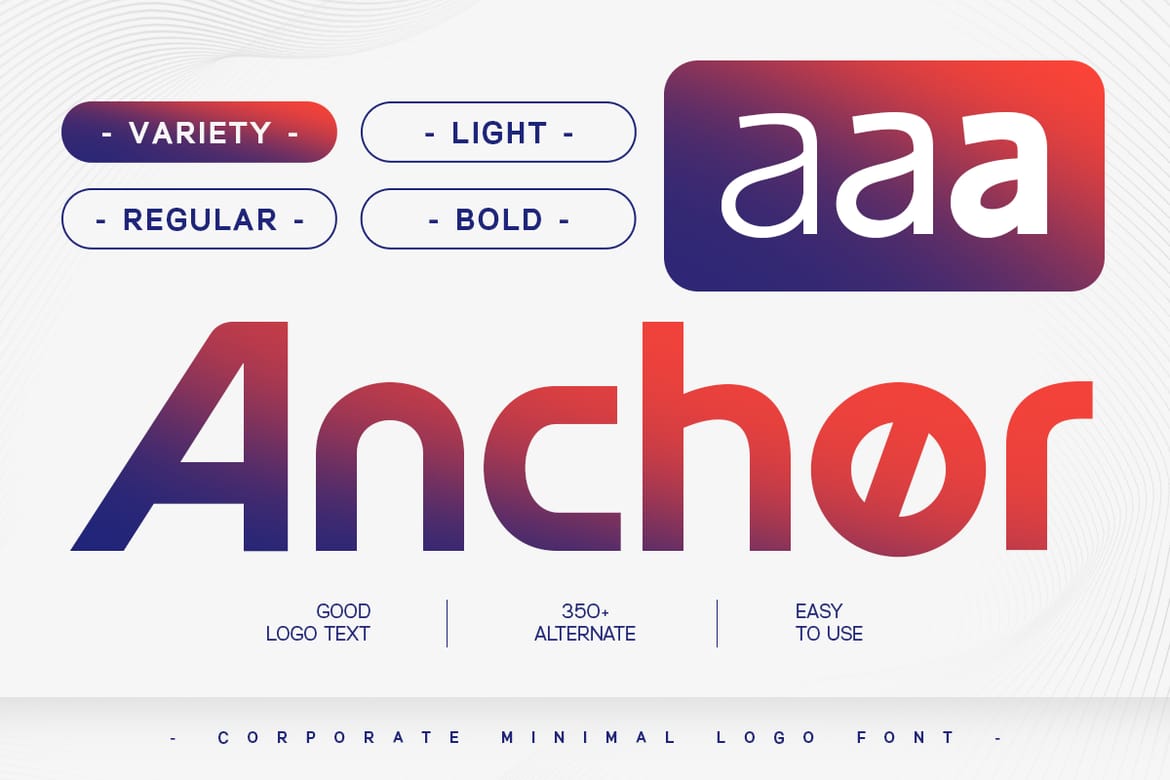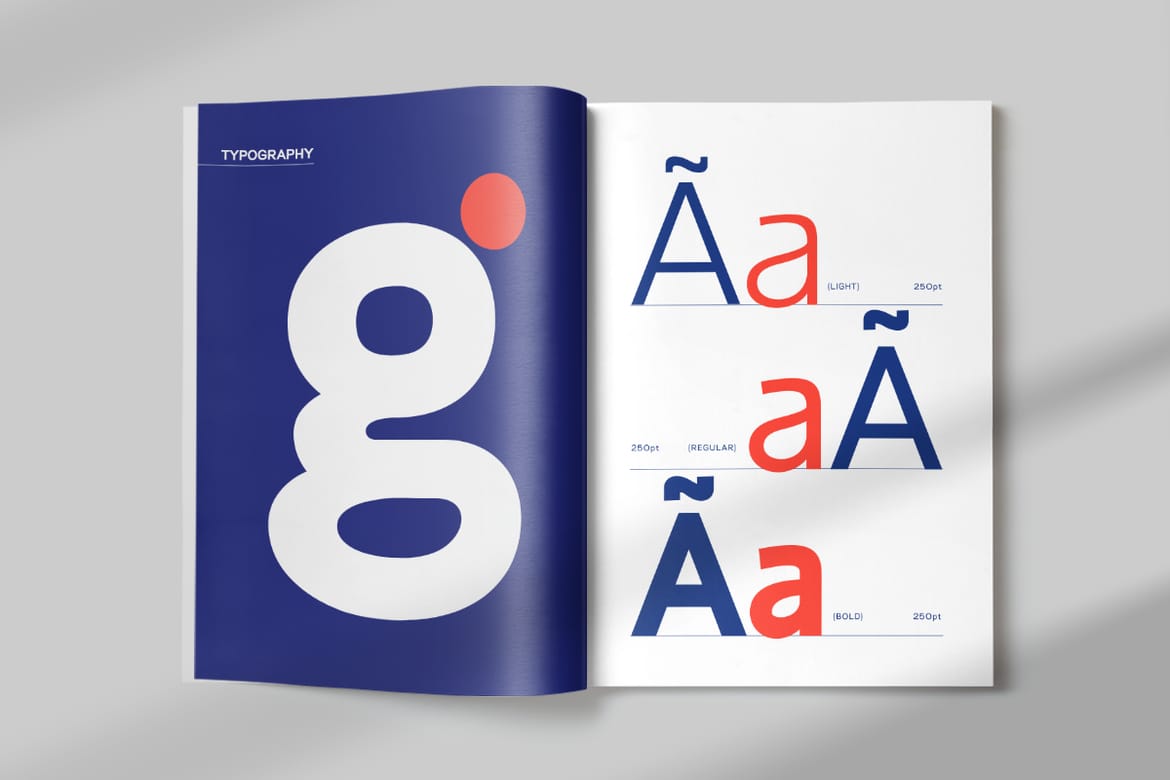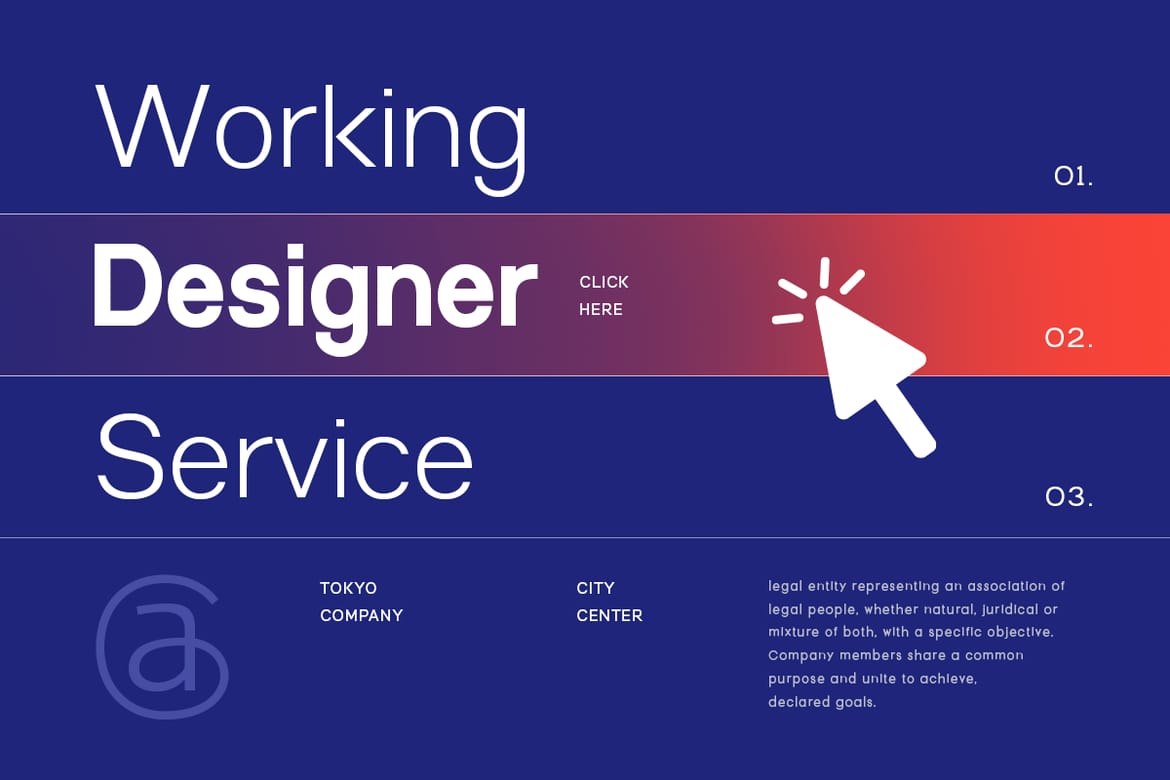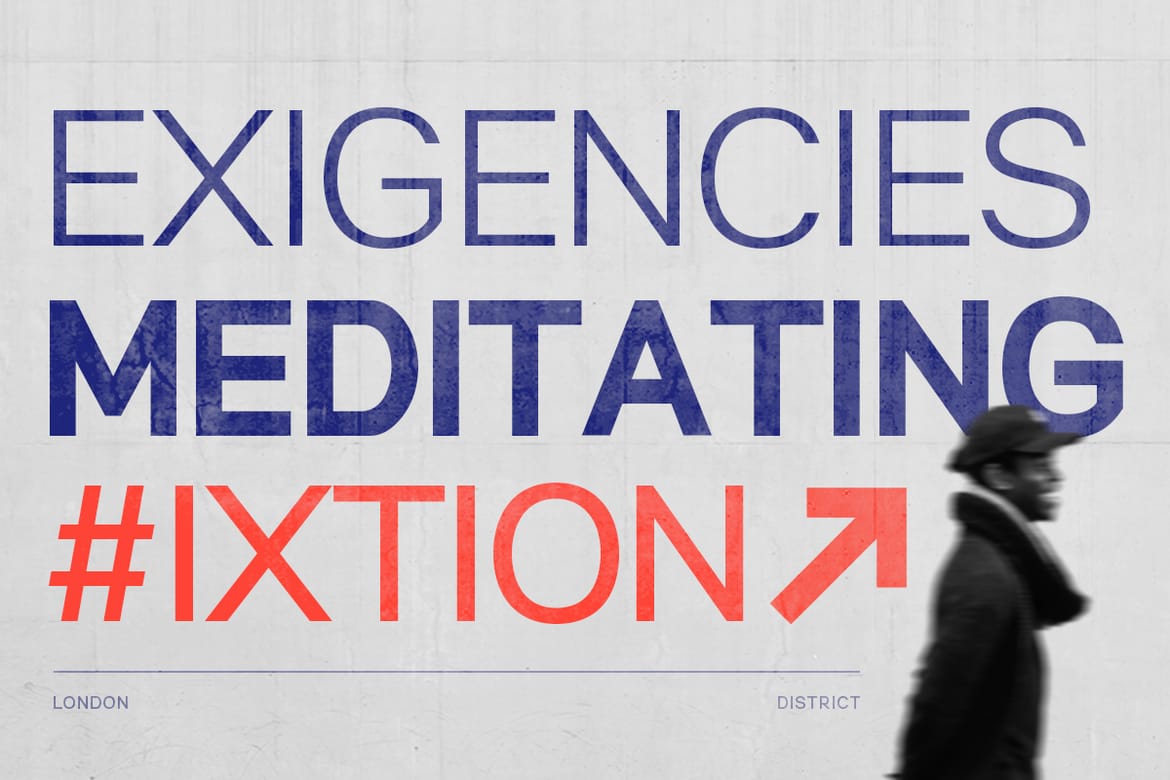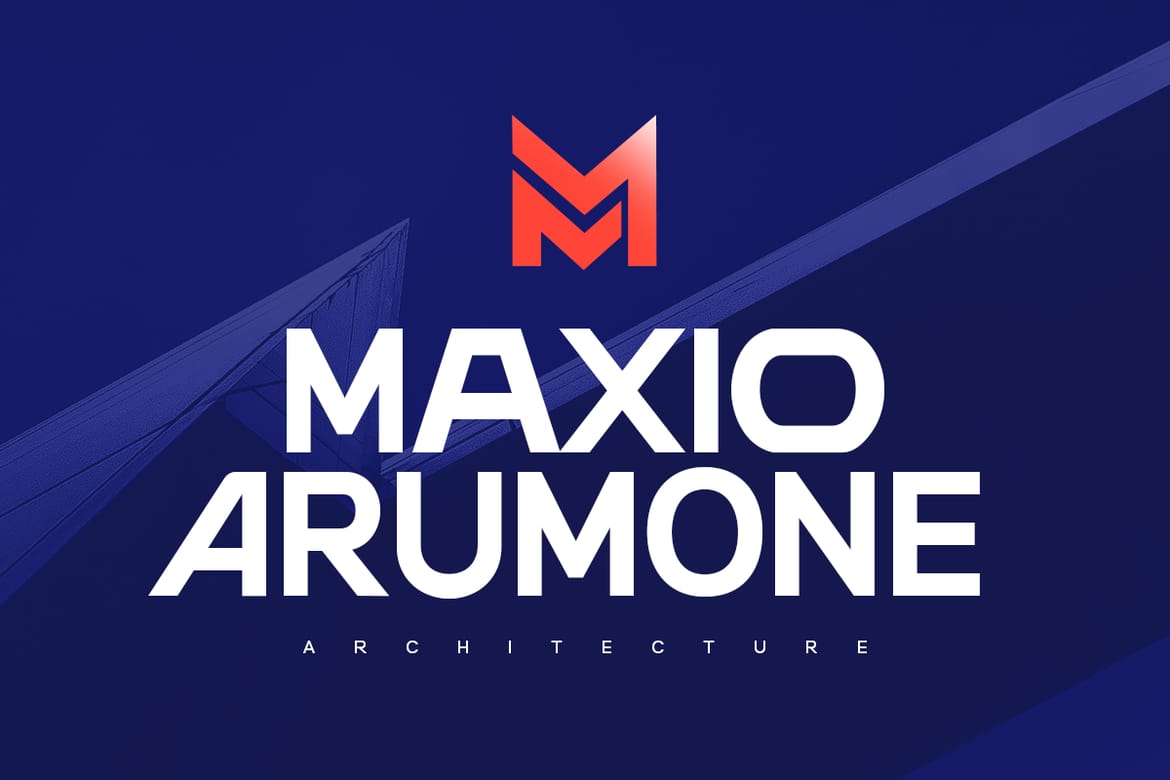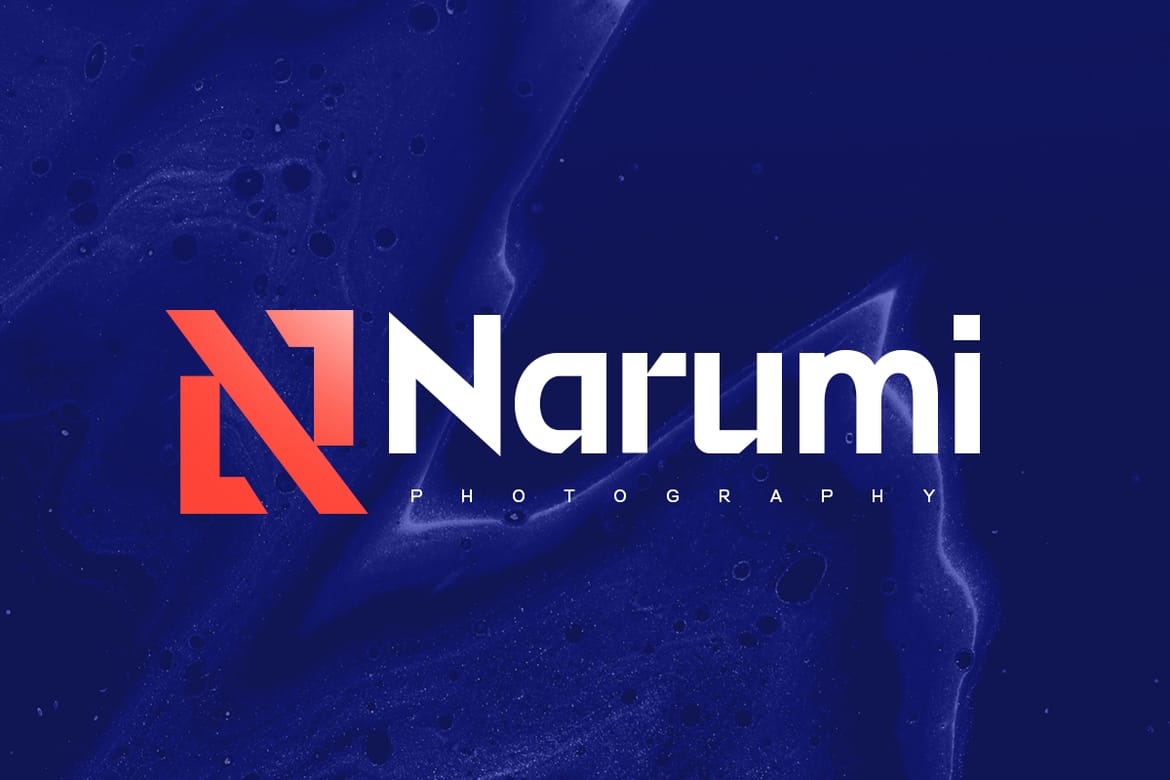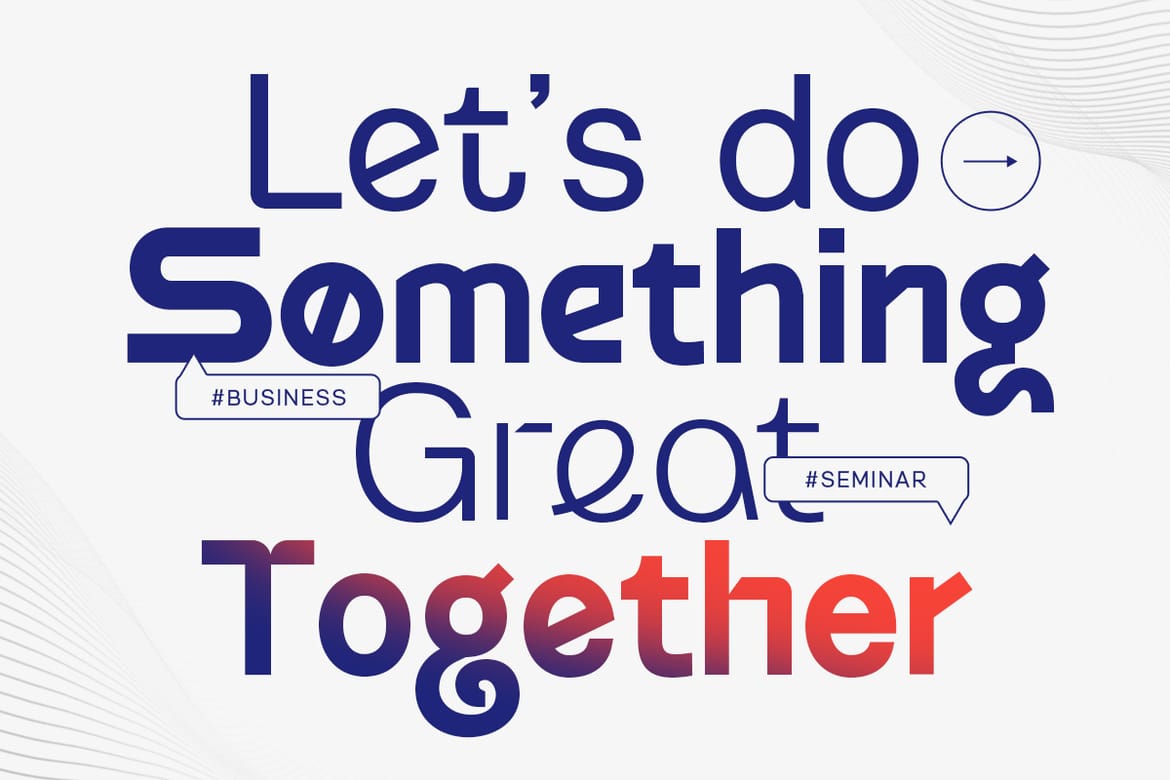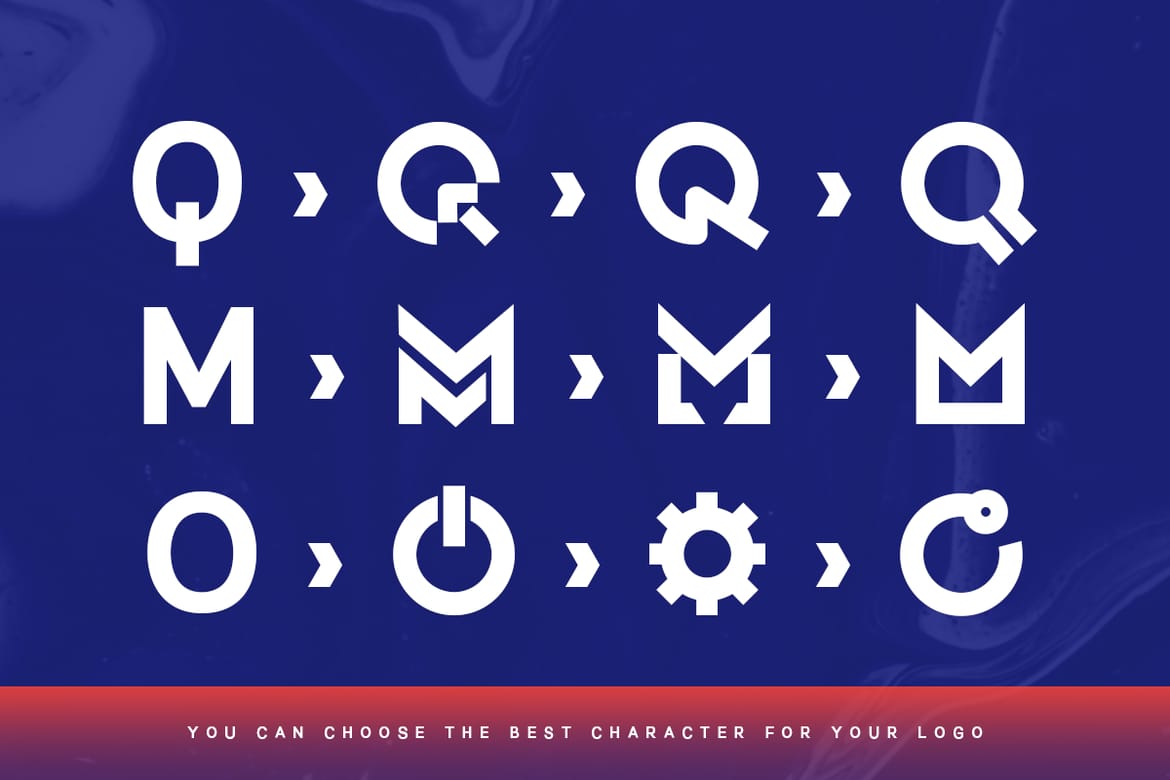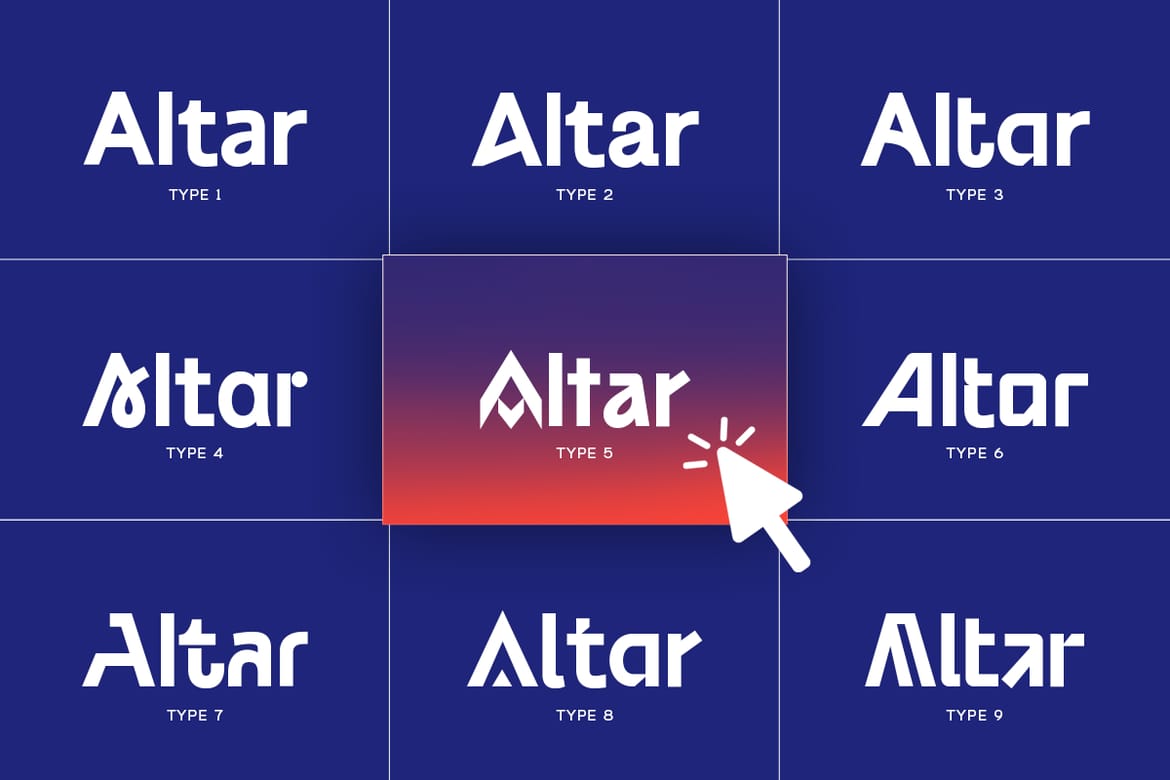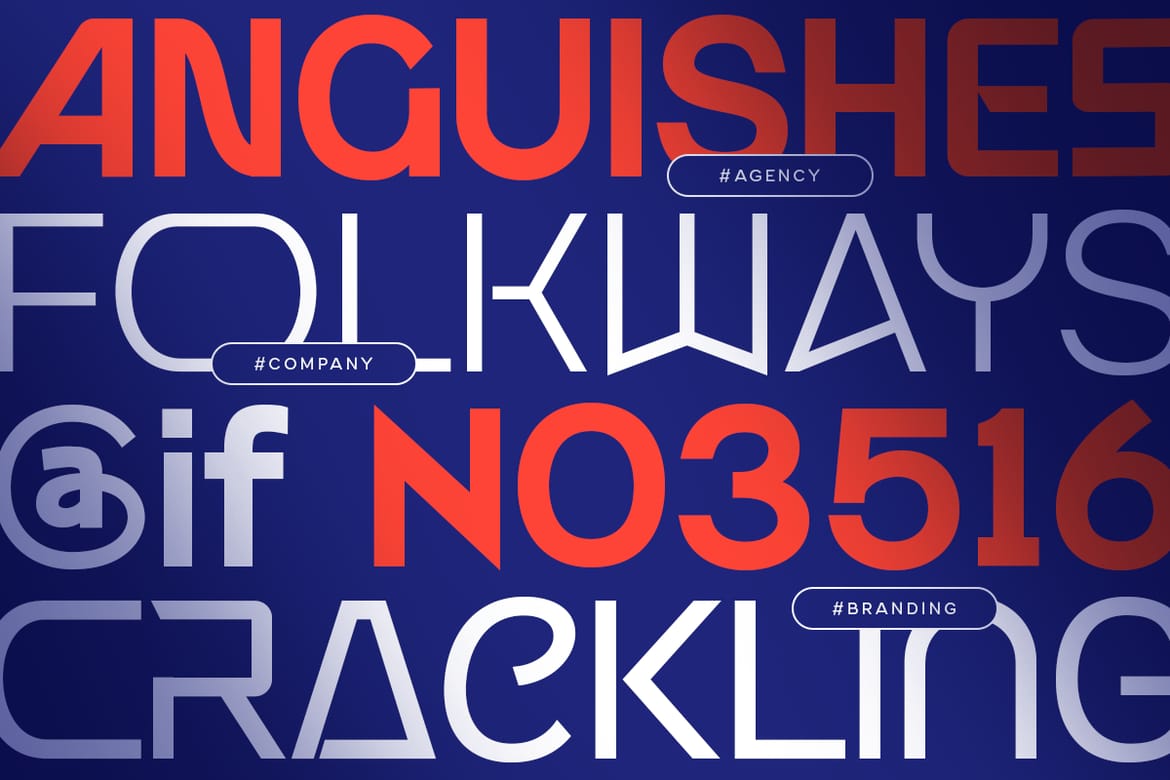
Introducing Anchor, a font designed to bring a modern and professional touch to your corporate branding. Combining sleek aesthetics with a minimalist approach, Anchor is perfect for creating logos and branding materials that exude sophistication and professionalism.
Anchor Font Features:
Modern Design: Sleek and minimalist, ideal for corporate and business use.
Professional Aesthetics: Clean lines and elegant curves that convey sophistication.
Versatile Usage: Perfect for logos, business cards, corporate presentations, and office materials.
High Legibility: Clear and easy to read, ensuring your message is communicated effectively.
Elegant Simplicity: Combines modern style with a professional look.
Inspirational Previews: Includes sample designs to spark your creativity.
Perfect For:
Corporate Branding: Create sleek and professional logos for businesses and companies.
Business Materials: Design elegant business cards, letterheads, and office stationery.
Presentations: Develop polished and modern presentations for corporate meetings and pitches.
Marketing Materials: Enhance brochures, flyers, and advertisements with a touch of elegance.
With Anchor, your corporate designs will achieve a new level of professionalism and style.
- Sleek minimalist corporate font
- Perfect for logos and branding